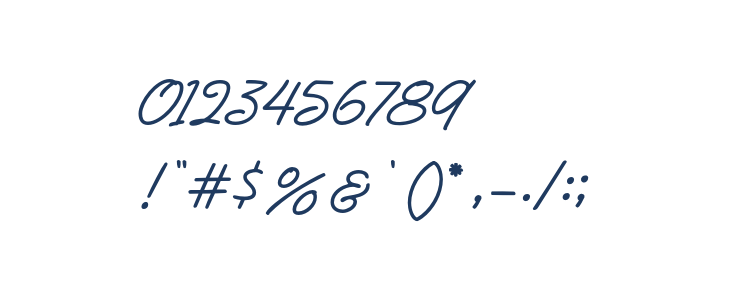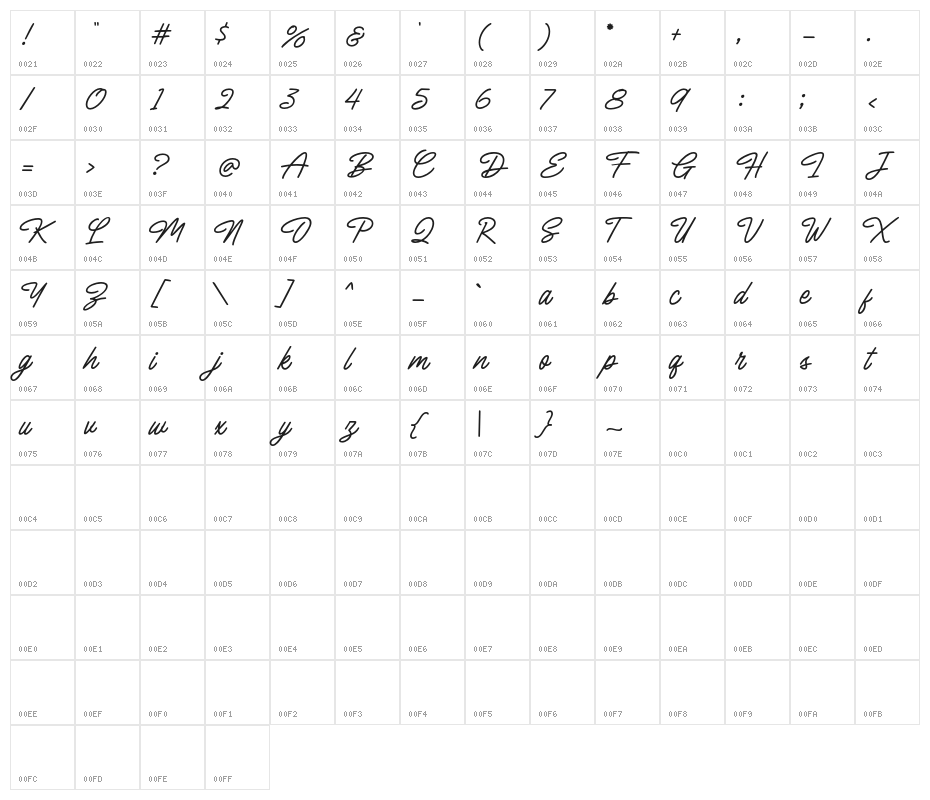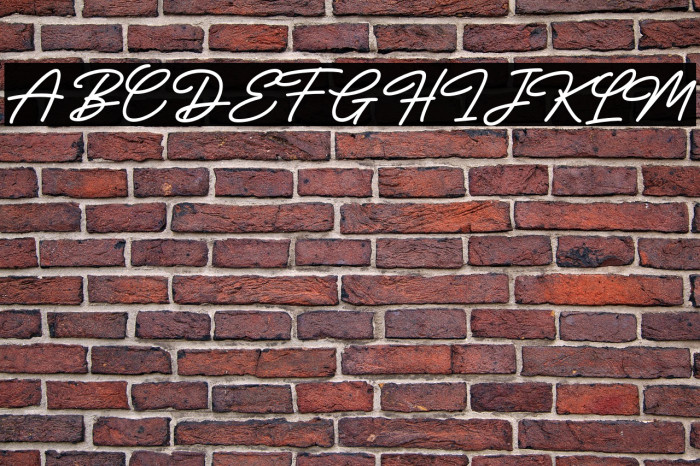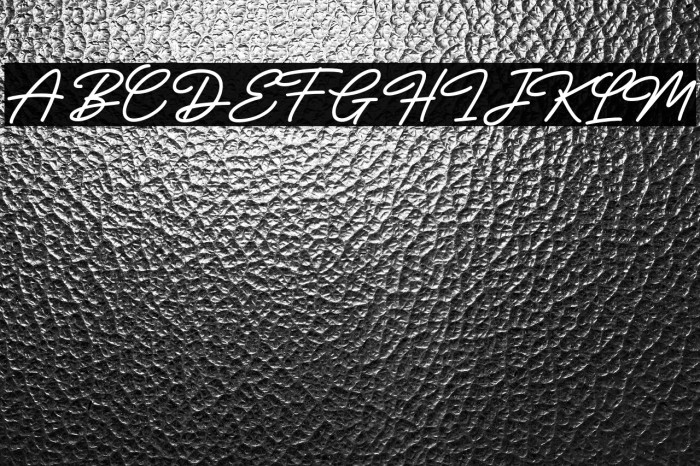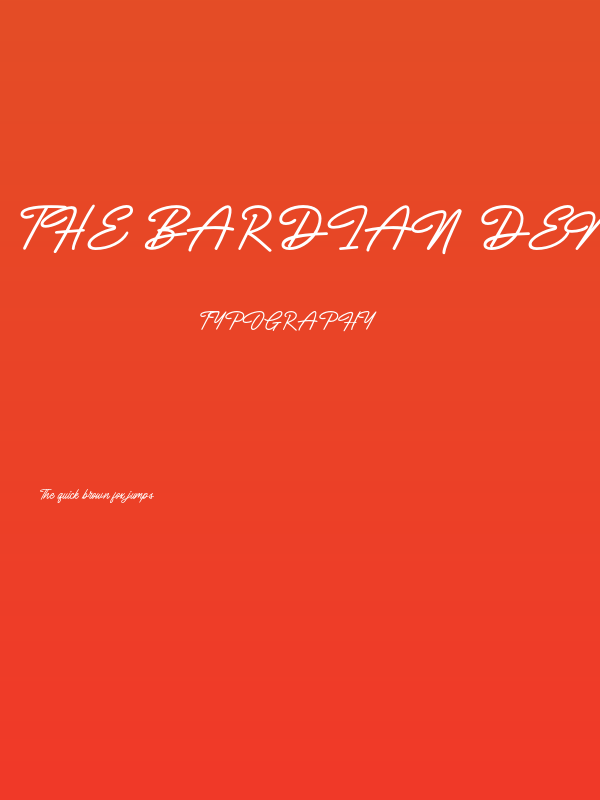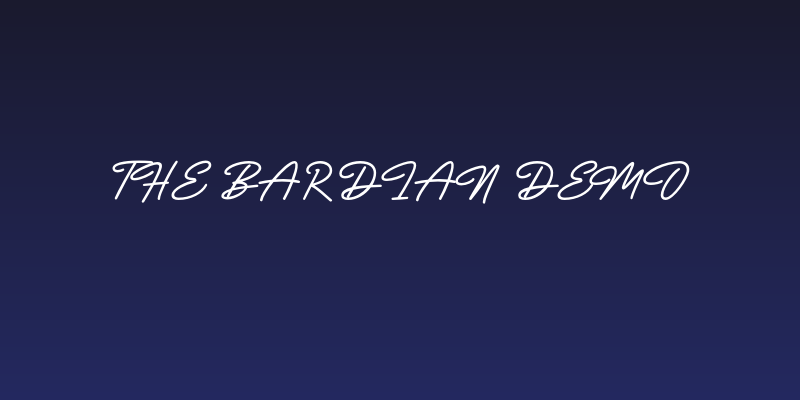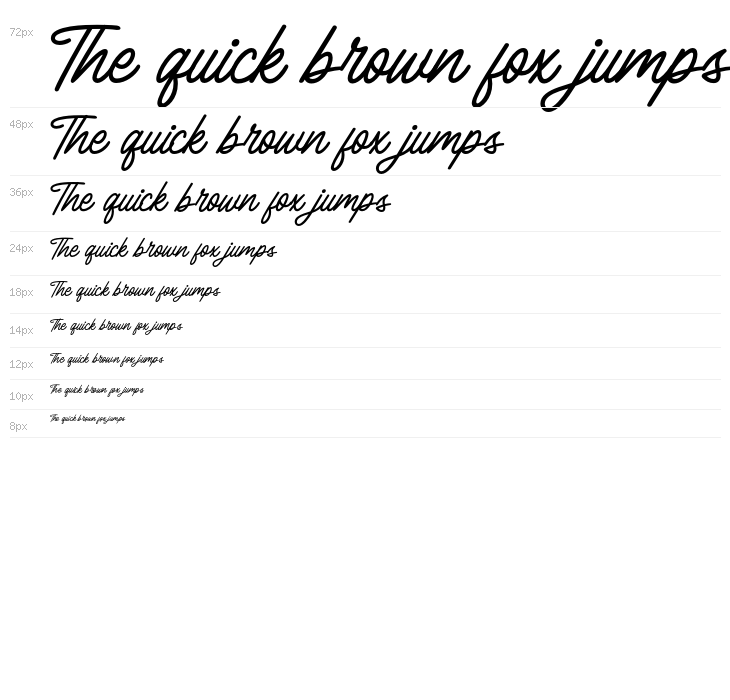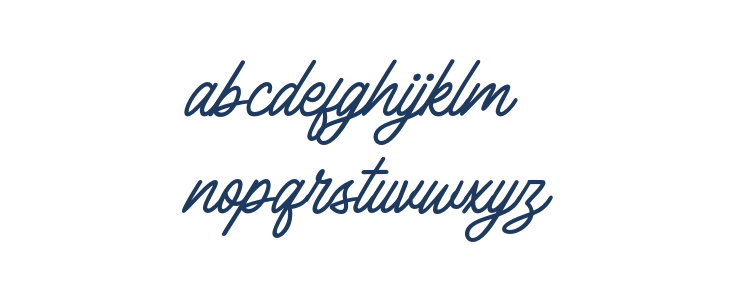
The Bardian DEMO Font
The Bardian DEMO Description
This font features a flowing, cursive style that mimics elegant handwriting. The characters are connected, creating a seamless and fluid appearance. The uppercase letters are slightly more ornate, with flourishes that add a touch of sophistication. The lowercase letters maintain a consistent slant, enhancing the script's graceful look. Numbers and special characters are designed to match the overall style, ensuring a cohesive appearance across all text. The font's smooth curves and balanced proportions make it suitable for projects that require a personal or artistic touch.
| Overall Style | Elegant, Artistic |
| Proposed Projects | Ideal for wedding invitations, greeting cards, personal branding, and artistic projects. |